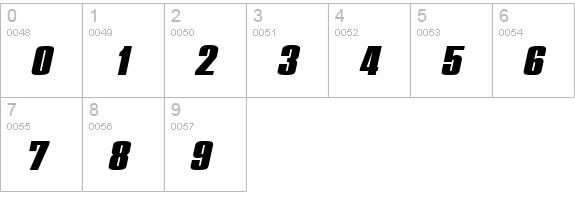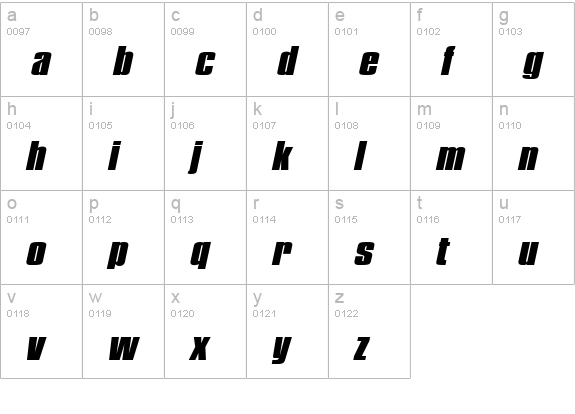
PledgeBlack Italic is a distinctive, italic variant in the PledgeBlack typeface family \xE2\x80\x94 well suited to design and typography projects.
PledgeBlack Italic font is a bold and stylish typeface that exudes elegance and sophistication. Its sleek lines and sharp angles make it perfect for adding a touch of modernity to any design project. The italicized version of PledgeBlack adds a dynamic flair, making it stand out from the crowd. What's even better is that PledgeBlack Italic font is completely free to download at FontsMarket.com. This means you can easily access this high-quality font without any cost, making it a valuable addition to your font collection. Whether you're working on a creative project, branding materials, or any other design endeavor, PledgeBlack Italic font will elevate your work with its unique charm and versatility. Download it now and unleash your creativity with this exceptional typeface.